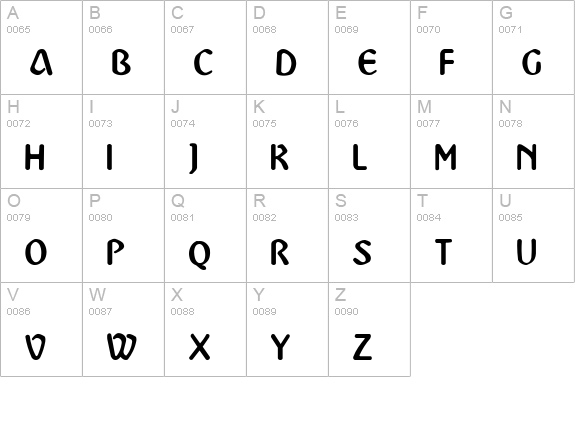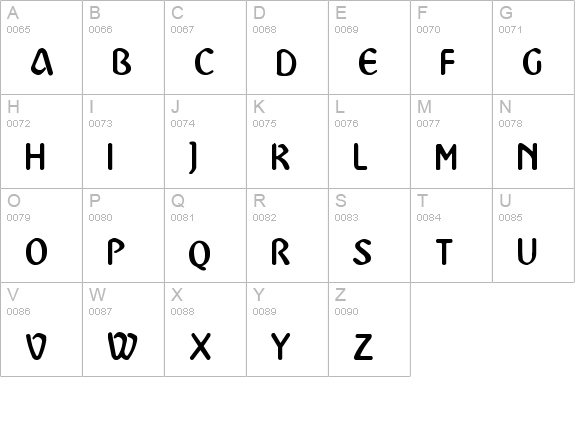
Karen-Medium Font Details
Karen-Medium is a balanced, medium-weight variant in the Karen typeface family \xE2\x80\x94 well suited to sub-headlines, navigation, and balanced editorial work.
Introducing Karen-Medium, a stunningly elegant font that exudes sophistication and grace. Designed with precise attention to detail, this font strikes the perfect balance between modernity and classic appeal. Its sleek and clean lines make it ideal for a variety of projects, from branding and advertising to editorial design and web graphics. Karen-Medium is a versatile typeface that effortlessly captures attention and conveys a sense of professionalism. Its medium weight provides a harmonious balance between boldness and subtlety, making it easily legible in both large headlines and small body text. The meticulously crafted letterforms exhibit a timeless quality, ensuring that your designs will stand the test of time. But what truly sets Karen-Medium apart is its accessibility. This exceptional font is freely available to download at FontsMarket.com, allowing designers and creatives of all kinds to enhance their projects without breaking the bank. With just a few clicks, you can add the captivating allure of Karen-Medium to your design arsenal, empowering you to create visually stunning and impactful works of art. Whether you're designing a sleek logo, crafting an eye-catching poster, or creating a captivating website, Karen-Medium is the perfect companion to elevate your designs to new heights. Its versatility, elegance, and accessibility make it a must-have for any designer seeking a font that effortlessly combines style and practicality. Download Karen-Medium today at FontsMarket.com and unlock a world of design possibilities. With this exceptional font at your fingertips, you can confidently create captivating visuals that leave a lasting impression on your audience. Embrace the beauty and freedom of Karen-Medium, and let your creativity soar like never before.